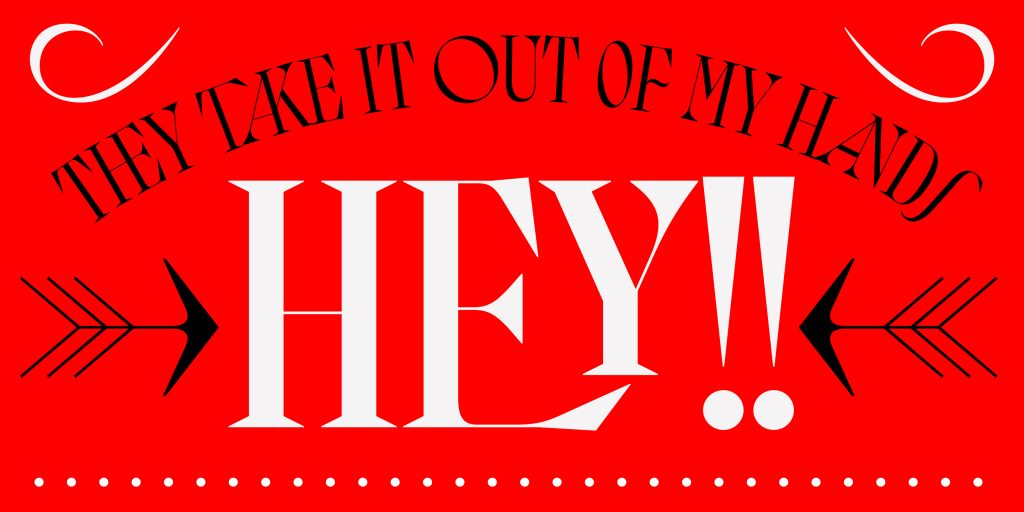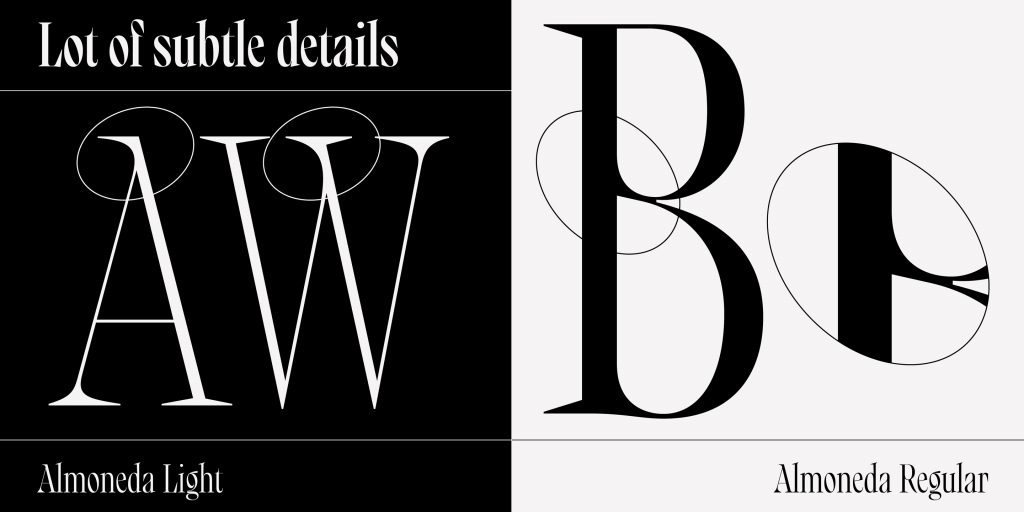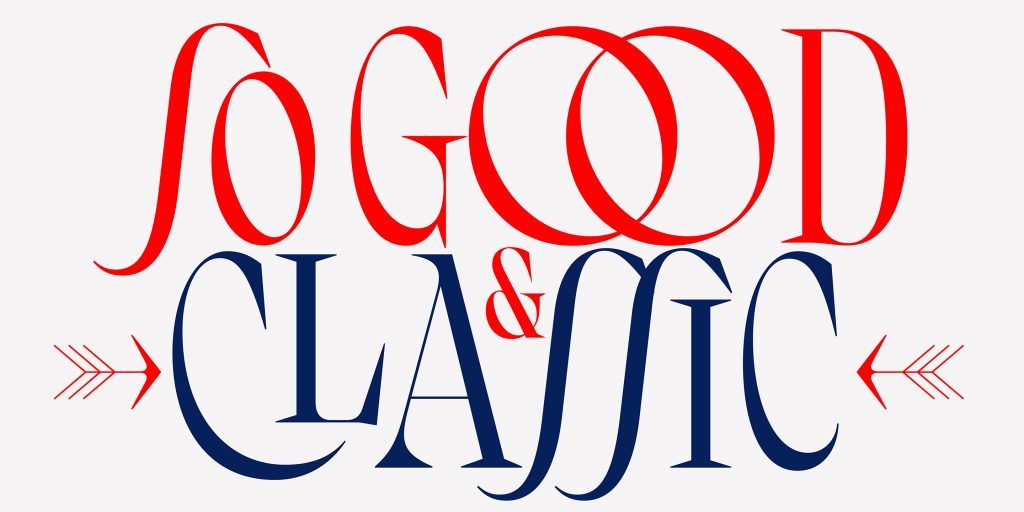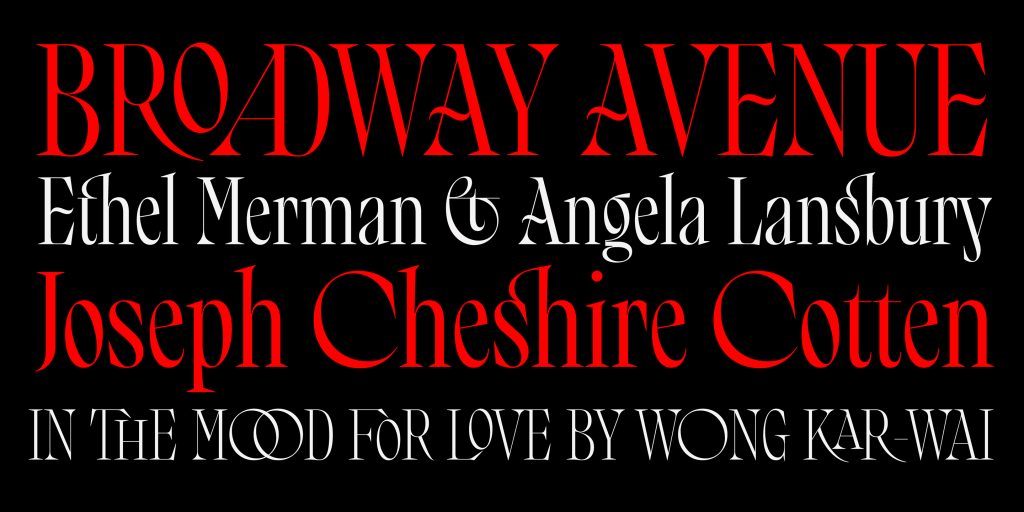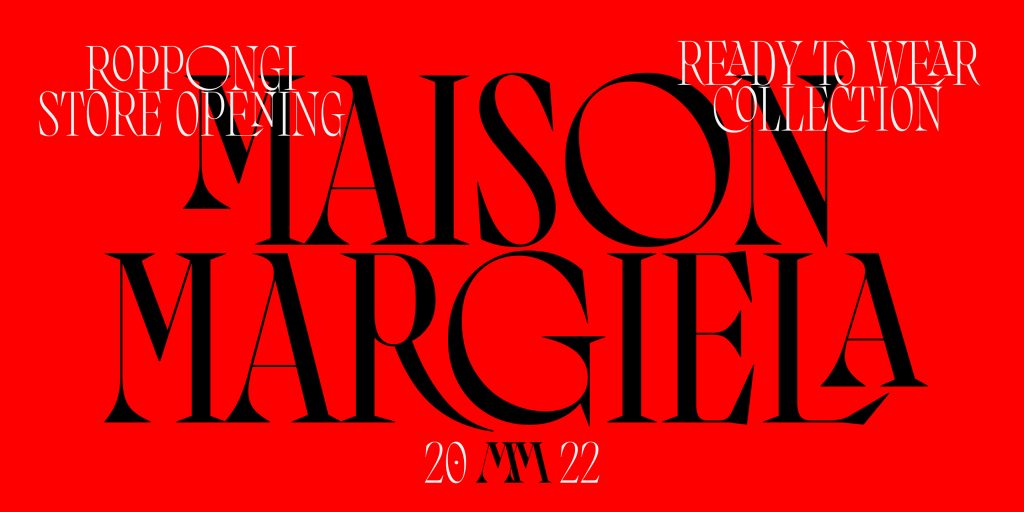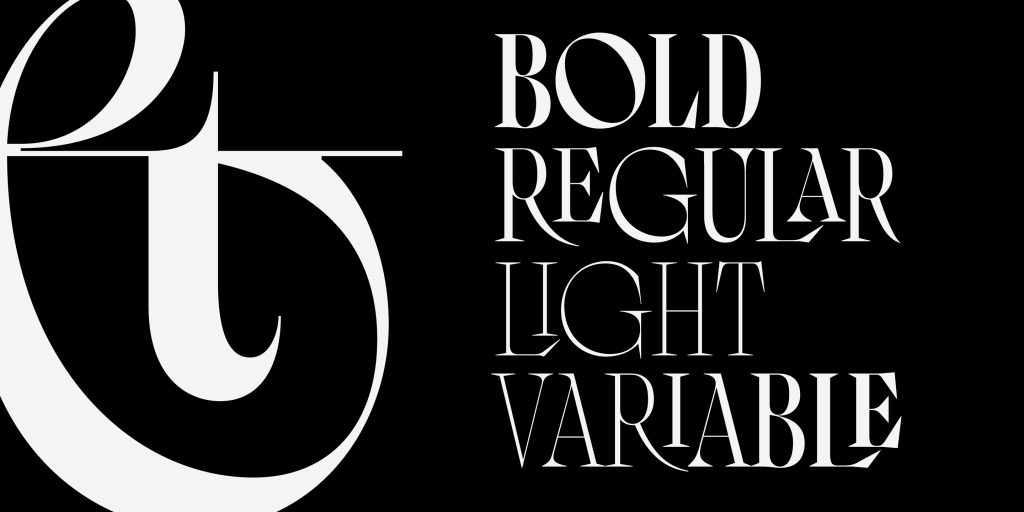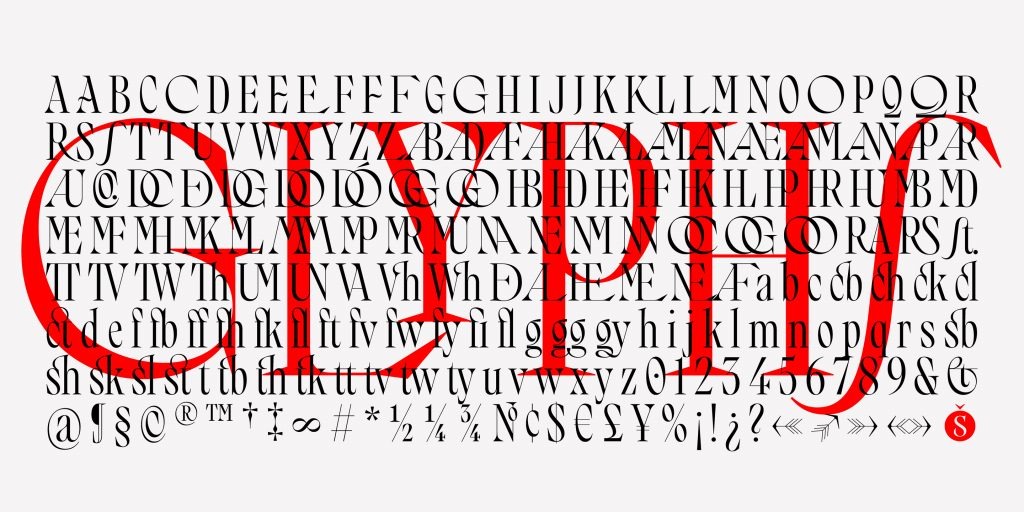
Name: Almoneda
Designer: Alejandro Santos
Foundry: Sudtipos
Back Story: Santos found inspiration for his typeface near El Rastro, an open-air market set up on Sundays in the center of Madrid, offering a feast of objects bearing lettering and typefaces from the late 19th and early 20th century. Almoneda the font is the designer’s homage to the city, drawing on old graphic elements seen on walks around town as well.
Four years in the making, Almoneda began with what Santos calls “crazy and ugly typefaces (mostly crazy).” Little by little, with the help of his friend and former teacher Juanjo López, he tackled the main challenge of forgetting about drawing pretty letters and creating a system of letters that had meaning and beauty both overall and individually.
Why’s it called Almoneda? In Madrid, the word almoneda is colloquially associated with spaces where the sale of “old things” takes place—in other words, the flea market. The typeface is named in honor of Santos’s love for all things flea.
What are its distinguishing characteristics? Almoneda features a great variety of stylistic sets and ligatures, along with some curious drawing styles. Considered together with the high stroke contrast axis in the curved letters, it all adds up to a most playful family. There is a beautiful “2” -shaped capital Q reminiscent of Palmer penmanship, and letters that get smaller and tuck neatly into the negative spaces of others alongside them. Variations of the capital F, A, and E have crossbars that curve gently like tildes, and the capital O leans way over to the left, like an old-style typeface. Stroke joins overall are varied and complex.
“My main idea was to create an interlock typeface, inspired by the letters and resources used by the ceramists of Talavera de la Reina, which can be seen all over Madrid,” Santos says. “Once the general system was defined, the next big challenge was to create a system for automating the interlocking letters without using ligatures, so I could play with the tracking freely.”
What should I use it for? Mainly for extravagant titles, large text, or logos; the variety of stylistic options allows plenty of opportunity for creative play. The designer offers one last piece of advice: “You can also use it at very small sizes and tell your worst enemy to read it, haha.” OK, maybe don’t do that. We’re all friends here.